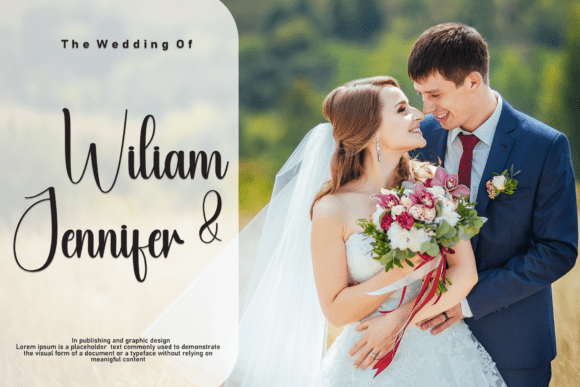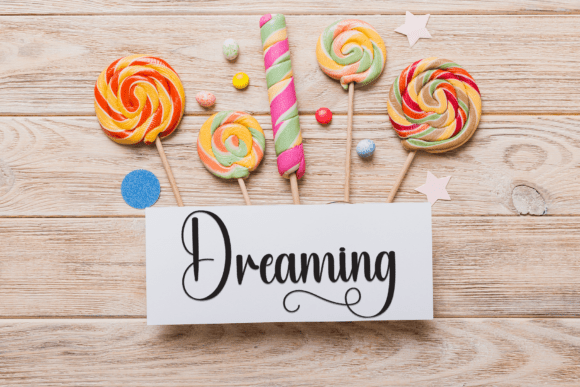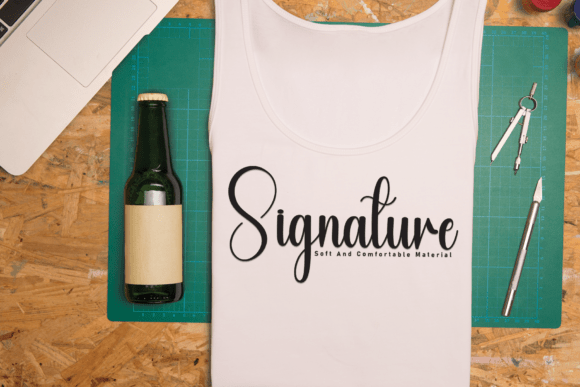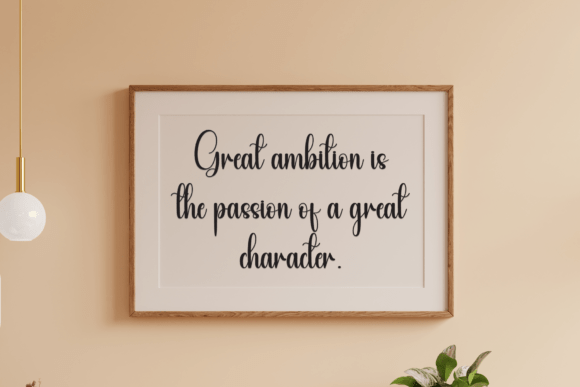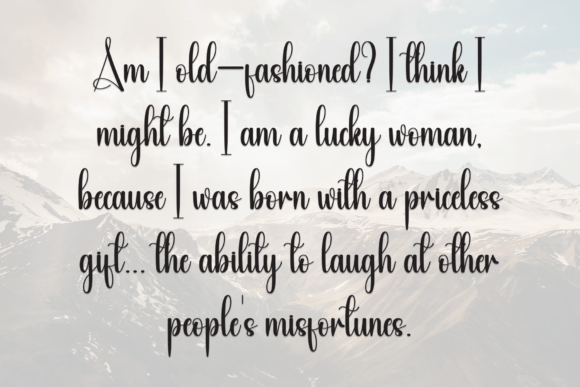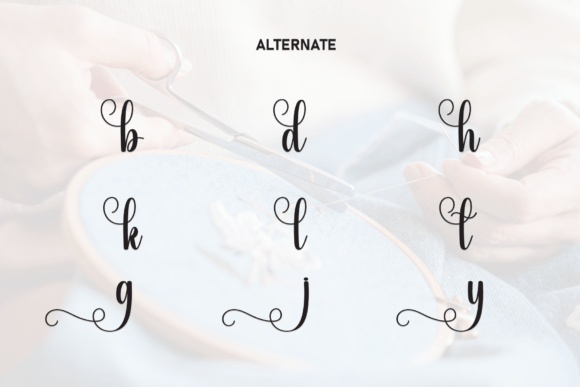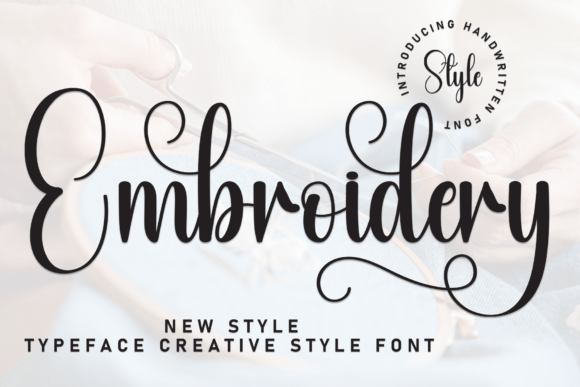
Introducing Embroidery Font: The Ultimate Choice for Friendly and Playful Designs
Are you looking for a font that can add a touch of friendliness and playfulness to your designs? Look no further than Embroidery Font, a charming, handwritten-style display font that’s perfect for crafting wedding invitations, greeting cards, and other design projects that require a dash of delightful whimsy. In this article, we’ll take a closer look at Embroidery Font, its features, and how it can elevate your designs to the next level.
What is Embroidery Font?
Embroidery Font is a beautiful, handwritten-style display font that’s designed to exude friendliness and approachability. This adorable typeface is packed full of fun and is tailor-made for designers and crafters who want to add a personal touch to their designs. With its charming and charismatic style, Embroidery Font is sure to make your designs speak volumes.
Key Features of Embroidery Font
So, what makes Embroidery Font so special? Here are some of its key features:
- Handwritten-style display font: Embroidery Font has a unique, handwritten-style design that’s perfect for creating friendly and approachable designs.
- PUA encoding: With PUA encoding, you can access all alternates and flourishes with ease, without the need for design tools.
- Fun and playful: Embroidery Font is designed to add a dash of fun and playfulness to your designs, making it perfect for wedding invitations, greeting cards, and other celebratory projects.
Uses of Embroidery Font
Embroidery Font is a versatile typeface that can be used for a wide range of design projects, including:
- Wedding invitations: Add a touch of elegance and whimsy to your wedding invitations with Embroidery Font.
- Greeting cards: Create personalized and playful greeting cards for birthdays, holidays, and other special occasions.
- Design projects: Use Embroidery Font to add a dash of fun and playfulness to your design projects, such as brochures, flyers, and posters.
Why Choose Embroidery Font?
So, why should you choose Embroidery Font for your design projects? Here are just a few reasons:
- Unique and charming style: Embroidery Font has a unique and charming style that’s sure to make your designs stand out.
- Fun and playful: Embroidery Font is designed to add a dash of fun and playfulness to your designs, making it perfect for celebratory projects.
Tips for Using Embroidery Font
Here are a few tips for using Embroidery Font in your design projects:
- Experiment with different sizes and colors: Embroidery Font looks great in a variety of sizes and colors, so don’t be afraid to experiment and find the perfect combination for your design.
- Use it with other fonts: Embroidery Font pairs well with other fonts, so try using it with a bold font for headings or a clean font for body text.
- Take advantage of PUA encoding: With PUA encoding, you can access all alternates and flourishes with ease, so be sure to take advantage of this feature to add extra flair to your designs.
In conclusion, Embroidery Font is a charming, handwritten-style display font that’s perfect for designers and crafters who want to add a touch of friendliness and playfulness to their designs. With its unique and charming style, ease of use, and fun and playful vibe, Embroidery Font is sure to make your designs speak volumes. So why wait? Download Embroidery Font today and start creating your own friendly and playful designs!